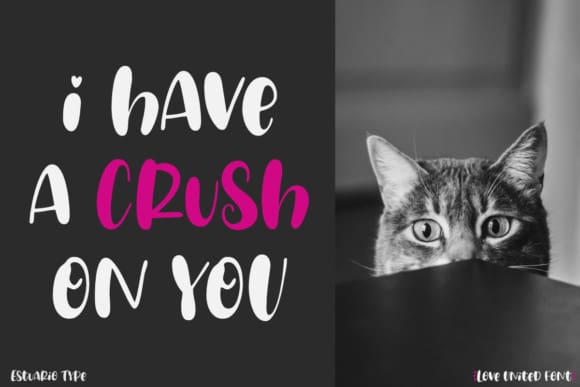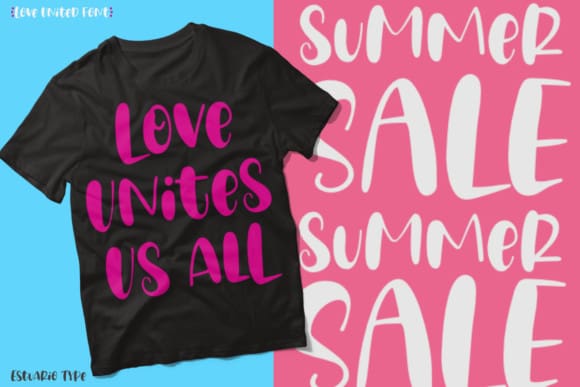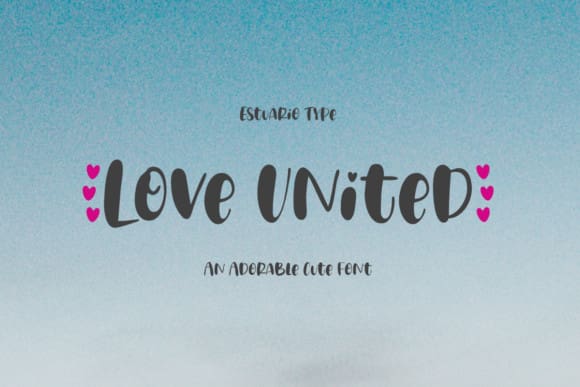
Love United Font
Love United Font is an adorable, cute and lovely display font. Whether you use it for cartoon related designs, children games or just any creation that requires a lovely touch, this font will be an amazing choice.